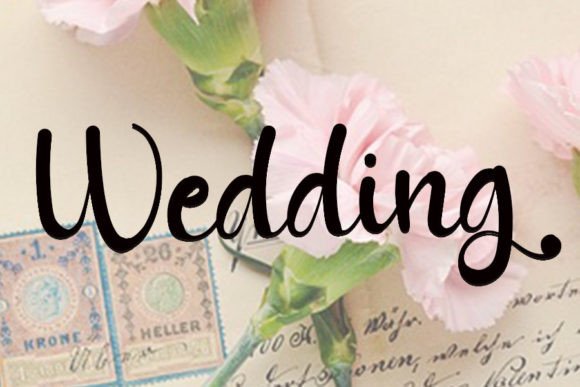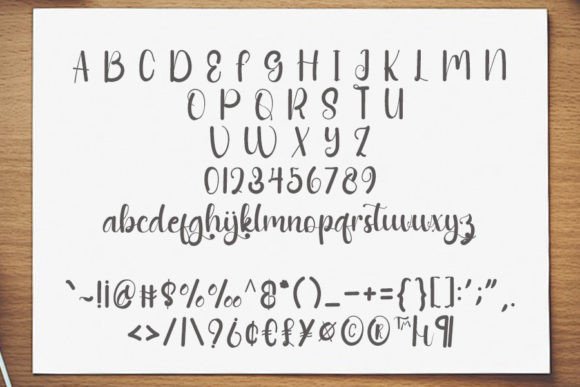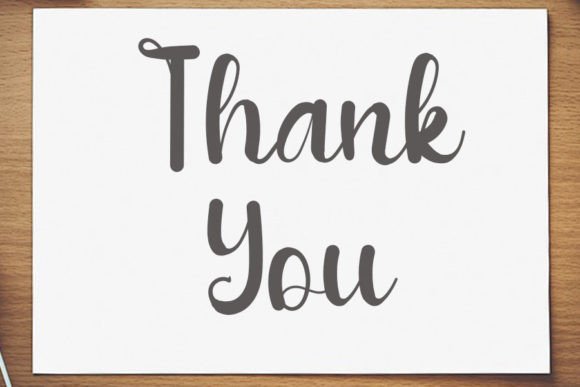
Introduction to Shining Nature Font
There’s something magical about the first spark of creativity – the moment when an idea starts to take shape, and your imagination runs wild. For designers, this moment is often the catalyst for something truly special. And when it comes to bringing your vision to life, the right font can make all the difference. That’s where the Shining Nature Font comes in – a stunning, handwritten font that’s as versatile as it is beautiful.
With its modern vibe and spotless form, the Shining Nature Font is the perfect design resource for anyone looking to add a touch of elegance to their creative project. Whether you’re working on a website, a brochure, or a social media campaign, this font is sure to shine. And the best part? It’s available for a free download, making it accessible to designers of all levels.
Key Features of Shining Nature Font
- Unique, hand-drawn design for a creative project, ideal as a design resource.
- Features a transparent background, making it perfect for use on any background or design.
- Includes a wide range of characters, including uppercase and lowercase letters, numbers, and punctuation.
Honest Review: Shining Nature Font
I recently had the chance to work with the Shining Nature Font, and I must say it’s been a delightful experience. As a designer, I’m always on the lookout for high-quality design resources that can elevate my creative projects. This font definitely fits the bill.
- ✨ Unique and creative style that adds a touch of whimsy to any project
- ✨ High-quality design that’s perfect for printing or digital use
- ✨ Transparent background makes it easy to use with any design element
- ⚠️ Limited character set, which may be a drawback for designers who need a wide range of characters
- ⚠️ Not suitable for formal or corporate projects, as it has a more playful vibe
Overall, I’m impressed with the Shining Nature Font. It’s a great choice for designers who want to add a creative touch to their projects. While it may have some limitations, I think it’s a valuable addition to any design resource library.
Shining Nature Font
The Shining Nature Font is a beautiful, high-quality font ideal for creative projects that require a touch of elegance and sophistication. With a transparent background, this design resource can be easily incorporated into various design elements.